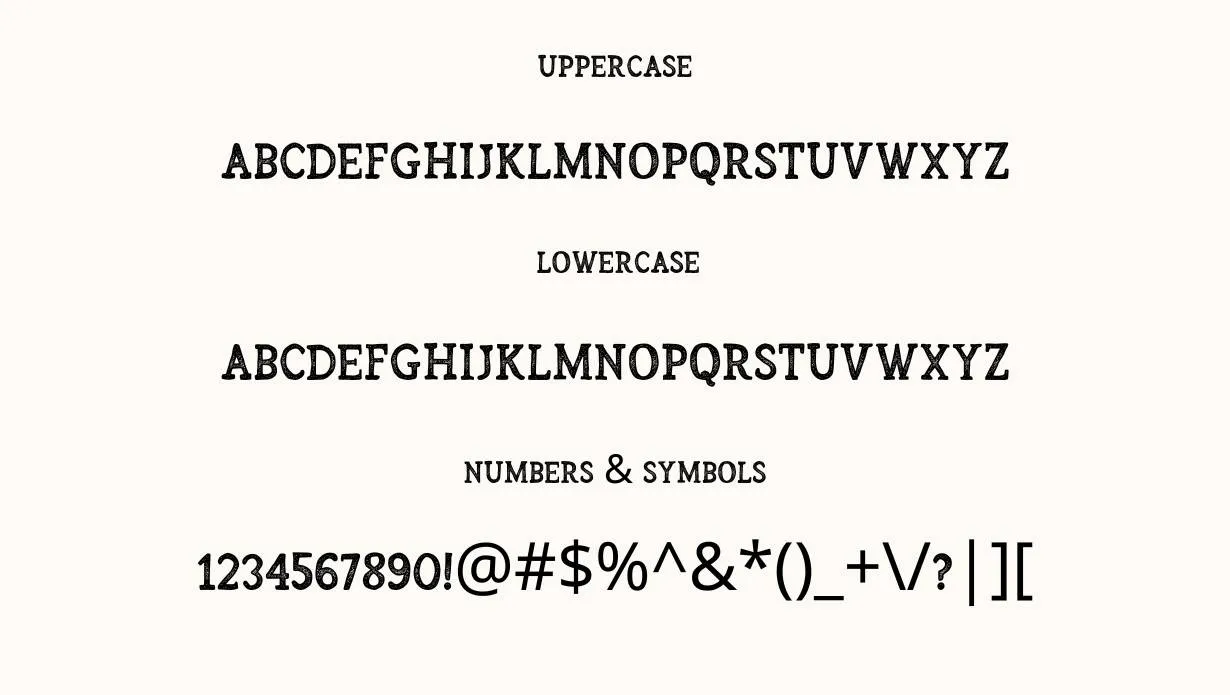
Arber Vintage Font is a typeface with a retro and nostalgic design, often used in vintage-themed designs, old-world branding, and artistic projects that evoke a sense of nostalgia and classic aesthetics.
This font adds a touch of historical charm and authenticity to your design work.
Name Arber Vintage Font
Designer Krisjanis Mezulis
Style Display